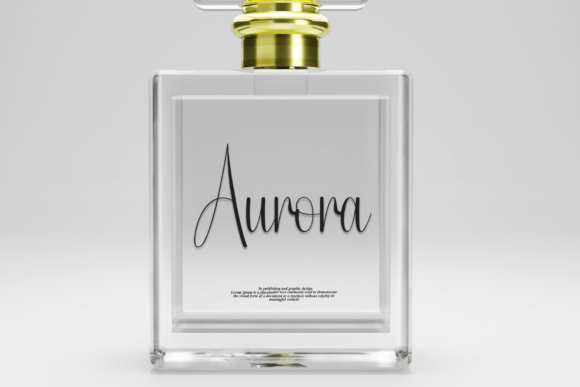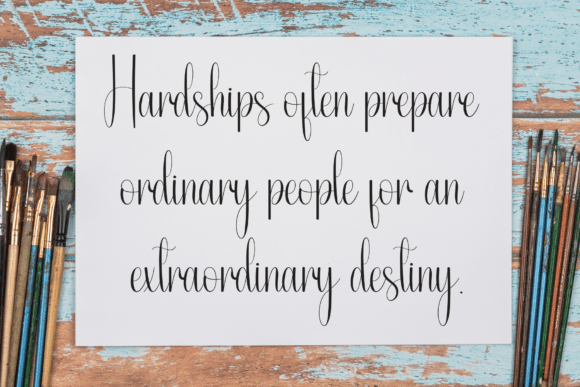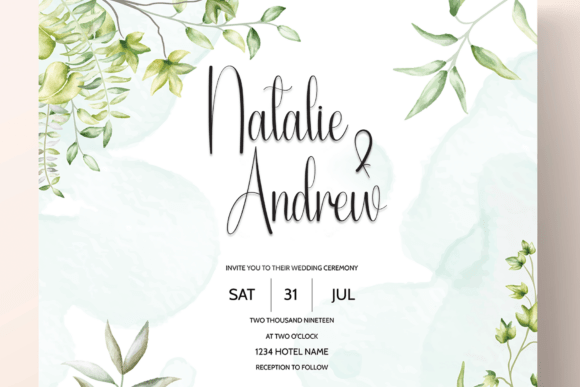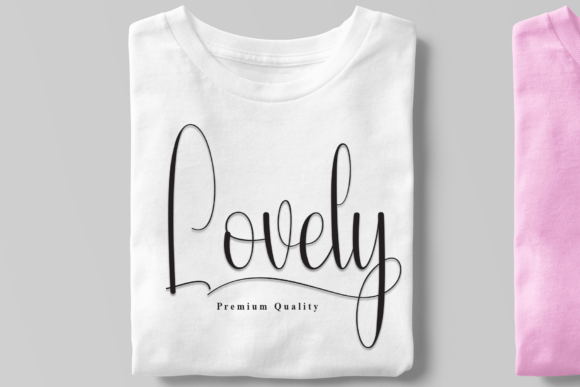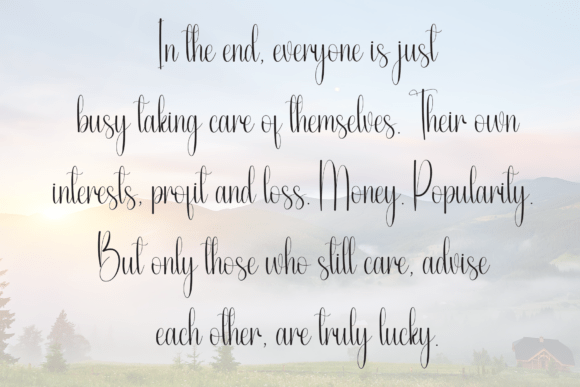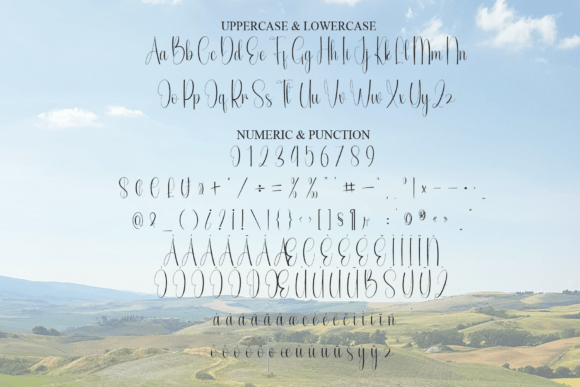
Introducing Country Font: The Perfect Blend of Elegance and Playfulness
In the world of typography, fonts play a crucial role in conveying the tone and personality of a design. For designers and crafters looking for a typeface that exudes modern elegance with a playful touch, Country Font is an excellent choice. This stylish handwritten script font is designed to bring a personal feel to any design, making it ideal for logos, packaging, and invitations.
What Makes Country Font Stand Out?
Country Font boasts fluid strokes and charming curves that give it a unique and sophisticated look. Its modern elegance is balanced with a playful touch, making it versatile enough to be used in various design projects. Whether you’re looking to create a logo, design packaging, or craft invitations, Country Font is sure to add warmth, sophistication, and creativity to every project.
Key Features of Country Font
- Handwritten Script Style: Country Font features a beautiful handwritten script style that adds a personal touch to any design.
- Fluid Strokes and Charming Curves: The font’s fluid strokes and charming curves give it a modern and elegant look.
- Playful Touch: Despite its elegance, Country Font has a playful touch that makes it perfect for designs that require a bit of whimsy.
- Versatile: Country Font can be used in a variety of design projects, including logos, packaging, invitations, and more.
Use Cases for Country Font
Country Font is an excellent choice for designers and crafters looking to add a personal touch to their designs. Here are some use cases where Country Font shines:
- Logos: Create a unique and memorable logo for your brand with Country Font.
- Packaging: Add a touch of elegance and sophistication to your product packaging with Country Font.
- Invitations: Design beautiful and personalized invitations for weddings, parties, and other events with Country Font.
- Stationery: Create custom stationery, including letterheads, business cards, and more, with Country Font.
Tips for Using Country Font Effectively
To get the most out of Country Font, here are some tips to keep in mind:
- Pair with Other Fonts: Experiment with pairing Country Font with other fonts to create a unique and visually appealing design.
- Adjust Font Size and Style: Adjust the font size and style to suit your design needs.
- Use in Combination with Images: Use Country Font in combination with images to create a stunning design.
Country Font is a stylish handwritten script font that blends modern elegance with a playful touch. Its fluid strokes and charming curves bring a personal feel to any design, making it ideal for logos, packaging, and invitations. With its versatility and range of use cases, Country Font is an excellent choice for designers and crafters looking to add warmth, sophistication, and creativity to their designs.
Get Creative with Country Font